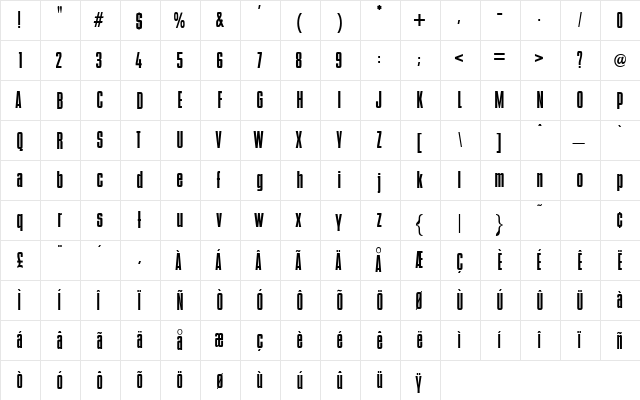
BisteckBold Regular
Design Context for BisteckBold Typeface
BisteckBold offers clean, dependable letterforms without strong stylistic allegiance, making it a practical choice for designers who need flexibility. The heavy weight commands attention and anchors typographic hierarchies.
Pro Tip: Use BisteckBold in both headline and body roles to test its range before committing to a single application.